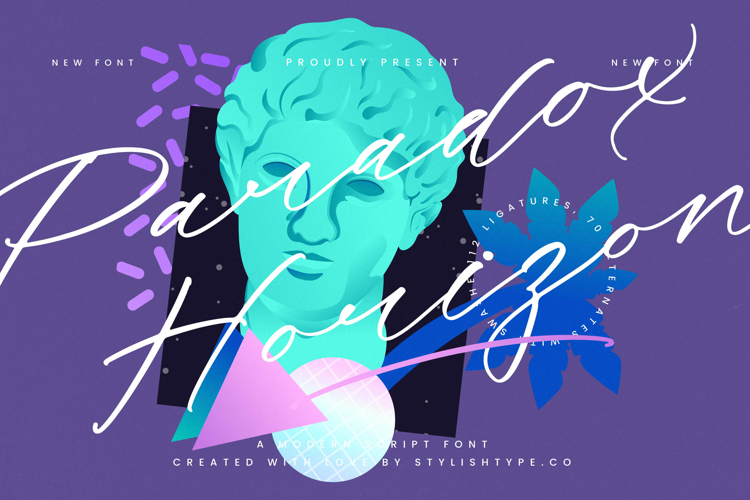
Paradox Horizon - Modern Script Font
Paradox Horizon - Modern Script Font, a highly expressive typeface designed for maximum impact. This script masters the balance between traditional fluidity and contemporary energy, featuring exceptionally long, graceful strokes and natural connections that mimic genuine hand-lettering. Its striking visual presence ensures that your designs are not just seen, but felt, offering a distinct edge in a crowded market that demands visual differentiation.